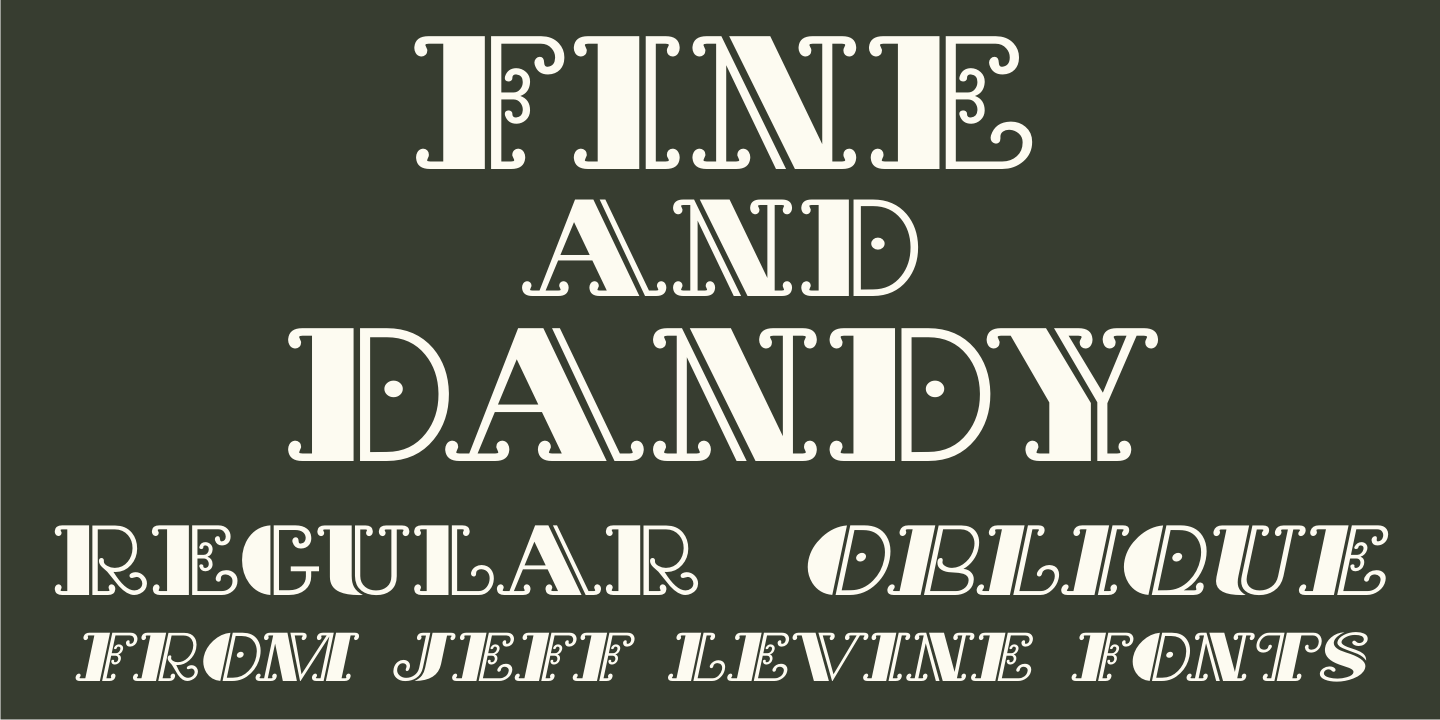
Fine and Dandy
Fine and Dandy JNL comes from the hand lettered title of the 1929 movie 'Isle of Escape”; found on the sheet music for its theme song 'My Kalua Rose”.
An engraved and fancy Roman, the style combines elements of Western, Art Nouveau and Art Deco into one attractive type design; available in both regular and oblique versions.